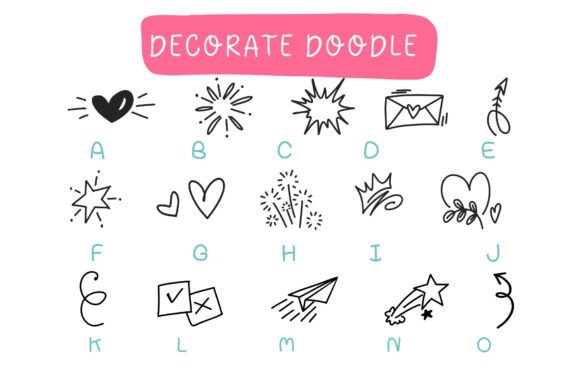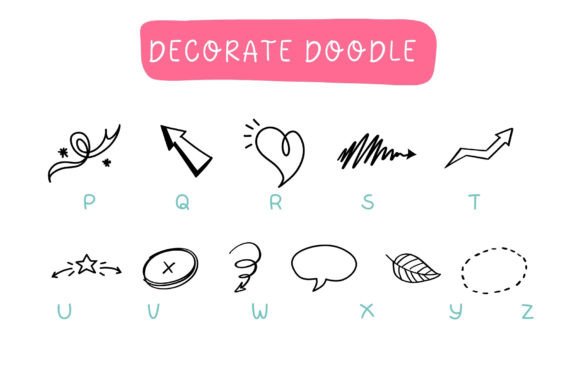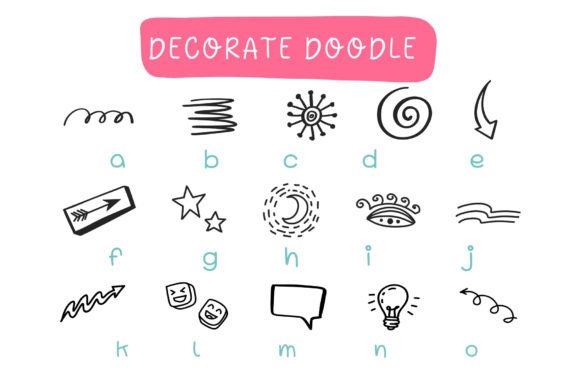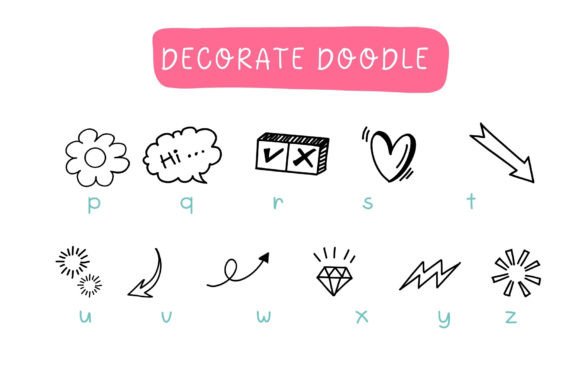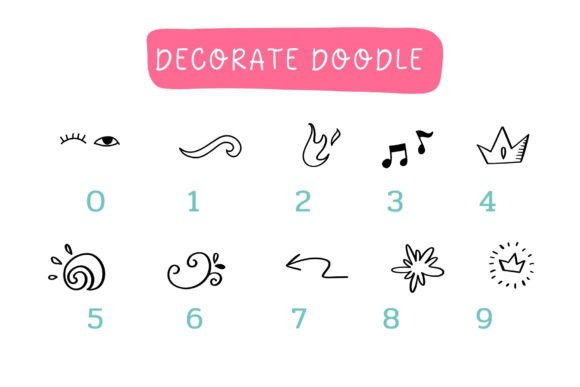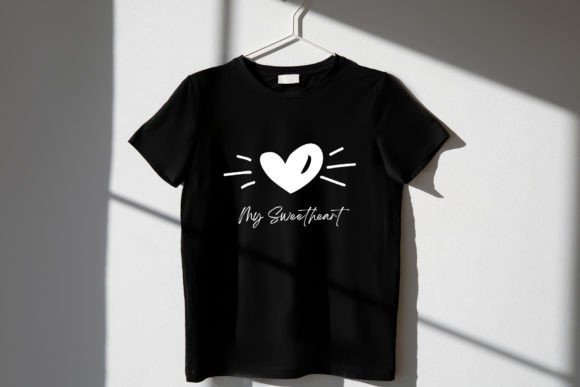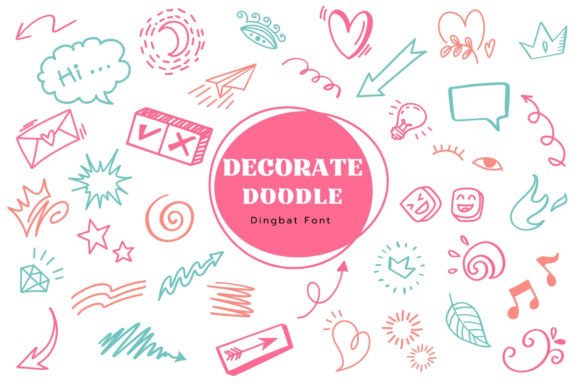
Unleash Your Creativity with Decorate Doodle Font
Are you a designer, crafter, or DIY enthusiast looking for a unique and creative way to add a personal touch to your projects? Look no further than the Decorate Doodle font, a dingbat font with a theme that features a charming sketch style. This versatile font is perfect for a wide range of creative projects, from wedding invitations and crafts to decorations, logos, and more.
What is Decorate Doodle Font?
Decorate Doodle is a dingbat font that is designed to add a playful and whimsical touch to your projects. The font features a sketch style theme that is reminiscent of hand-drawn doodles, making it perfect for crafters and designers who want to add a personal touch to their work. With its unique and quirky design, Decorate Doodle font is sure to make your projects stand out from the crowd.
Uses for Decorate Doodle Font
The possibilities are endless when it comes to using Decorate Doodle font. Here are just a few ideas to get you started:
- Wedding Invitations: Add a touch of whimsy and romance to your wedding invitations with Decorate Doodle font. Use it to create custom illustrations, decorations, and more.
- DIY Crafts: Whether you’re making cards, gift tags, or other crafts, Decorate Doodle font is the perfect way to add a personal touch.
- Decorations: Use Decorate Doodle font to create custom decorations for parties, events, and more. From garlands to banners, this font is sure to add a touch of personality to your decor.
- Logos: If you’re looking for a unique and creative way to brand your business, consider using Decorate Doodle font to create a custom logo.
- Creative Projects: From planners and journals to art and illustrations, Decorate Doodle font is the perfect way to add a touch of creativity and personality to your projects.
Benefits of Using Decorate Doodle Font
There are many benefits to using Decorate Doodle font in your projects. Here are just a few:
- Unique and Creative: Decorate Doodle font is a one-of-a-kind font that is sure to make your projects stand out from the crowd.
- Versatile: This font can be used for a wide range of projects, from wedding invitations to logos and more.
- Customizable: With Decorate Doodle font, you can customize your projects to fit your unique style and needs.
Tips for Using Decorate Doodle Font
Here are a few tips for using Decorate Doodle font in your projects:
- Experiment with Different Sizes: Try using Decorate Doodle font in different sizes to add visual interest to your projects.
- Combine with Other Fonts: Consider combining Decorate Doodle font with other fonts to create a unique and interesting look.
- Use for Illustrations: Use Decorate Doodle font to create custom illustrations and decorations for your projects.
- Have Fun: Most importantly, have fun with Decorate Doodle font! This font is all about creativity and self-expression, so don’t be afraid to experiment and try new things.